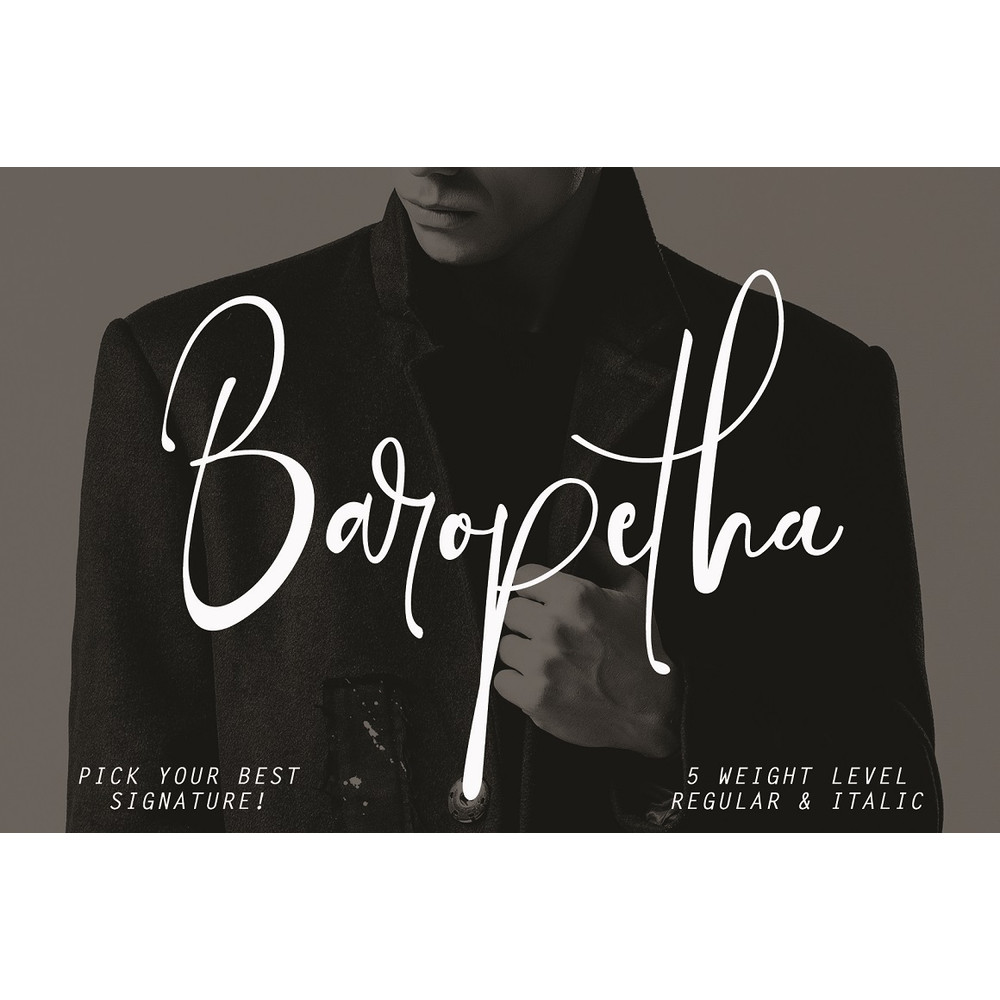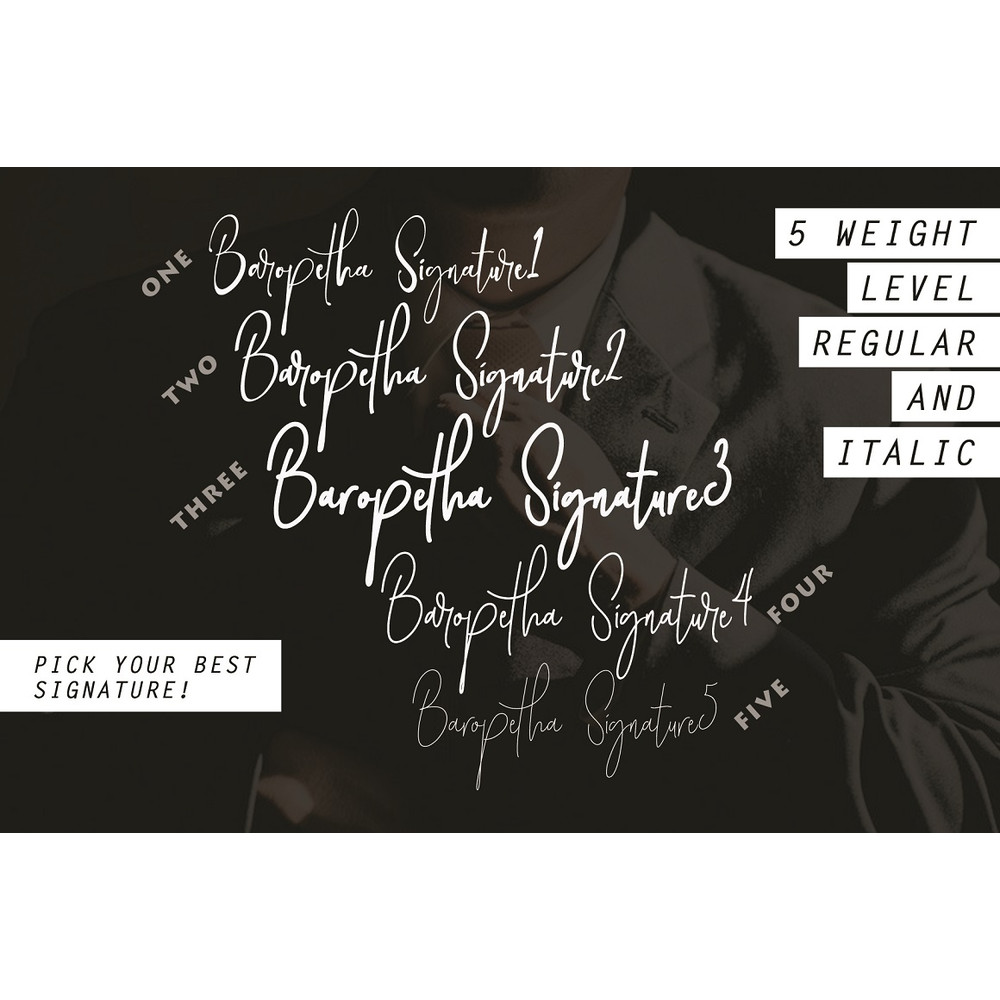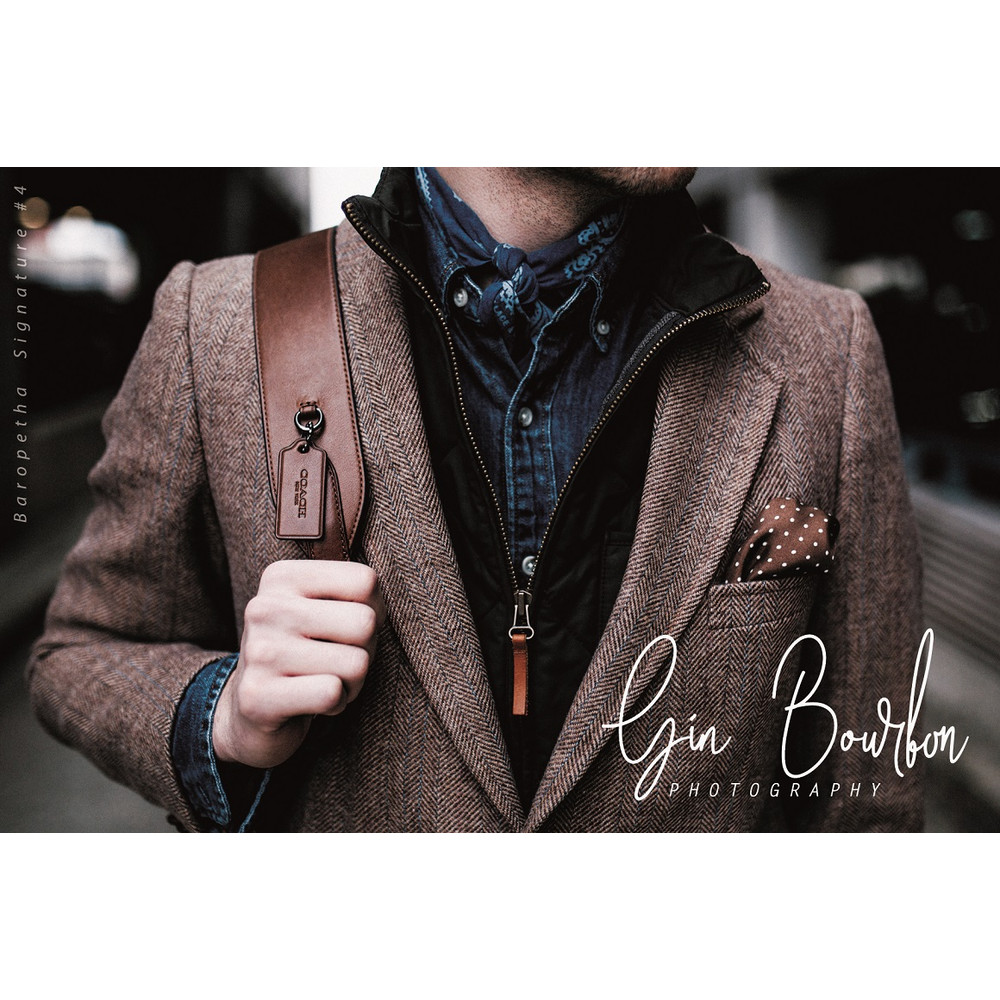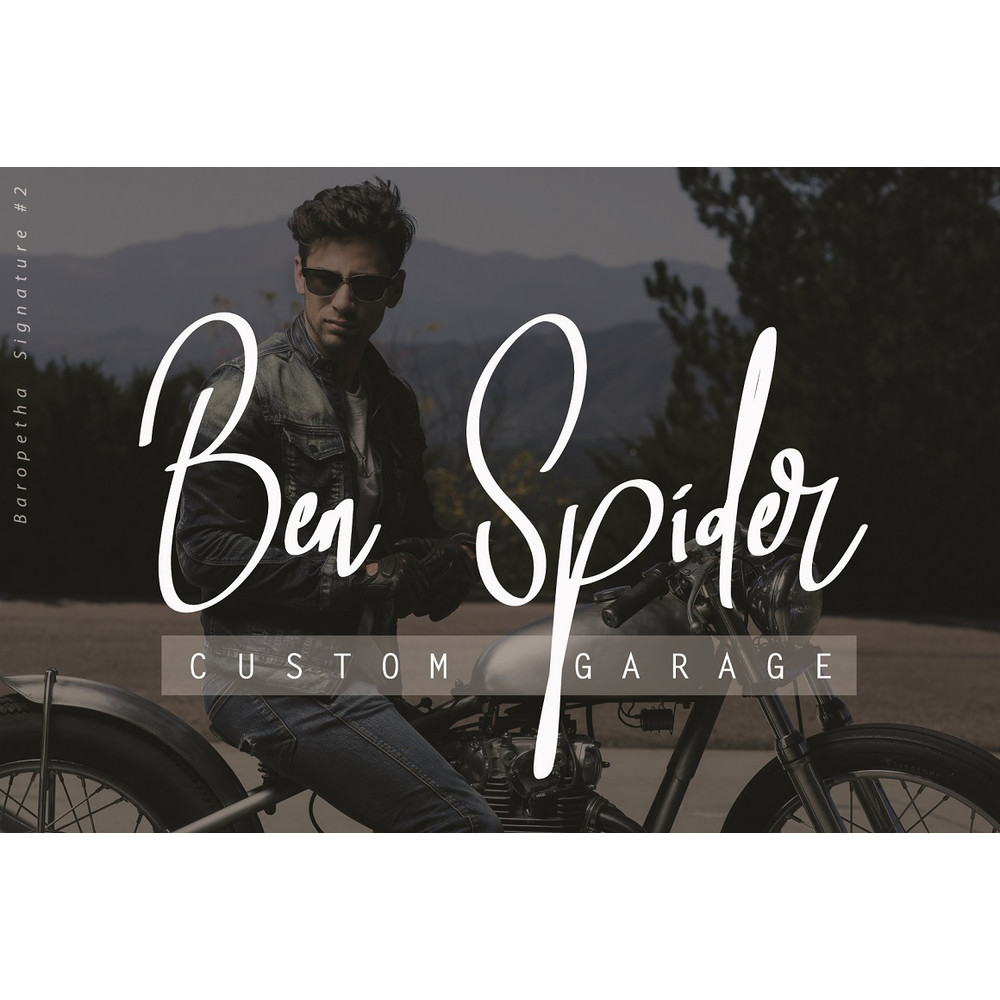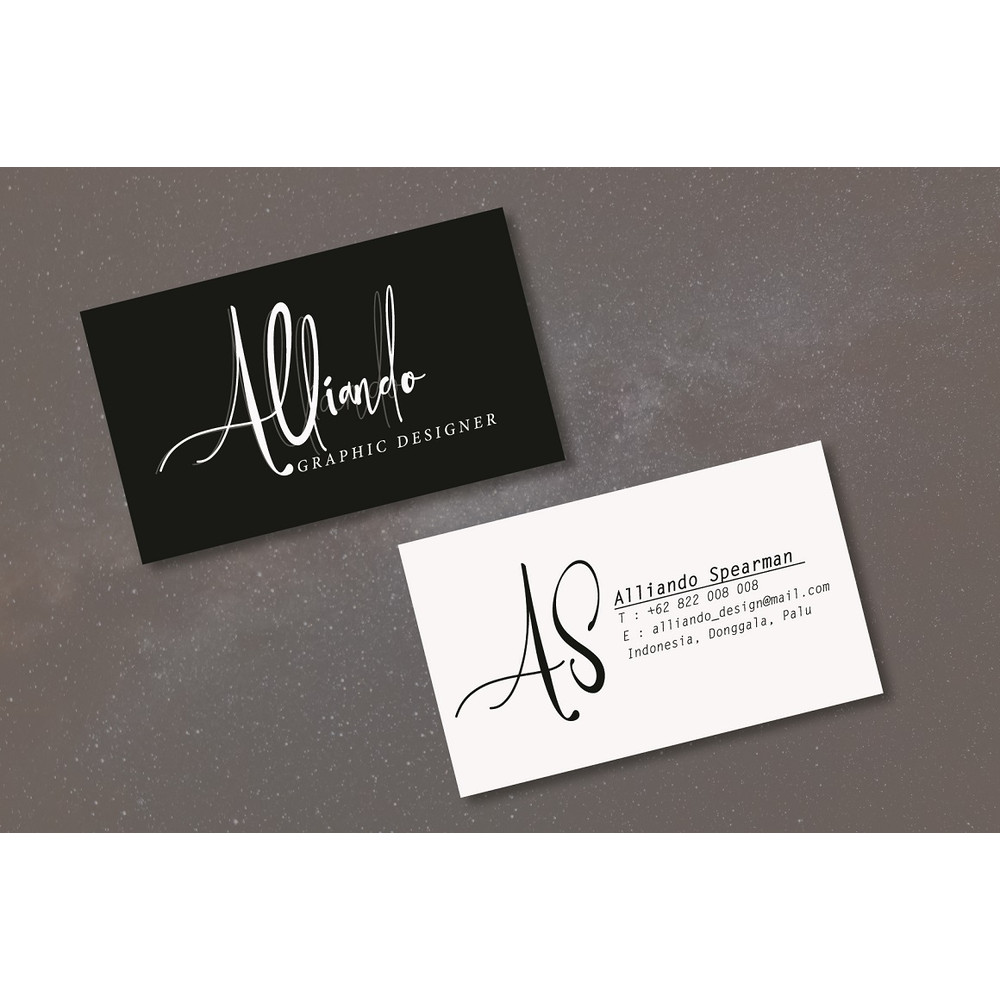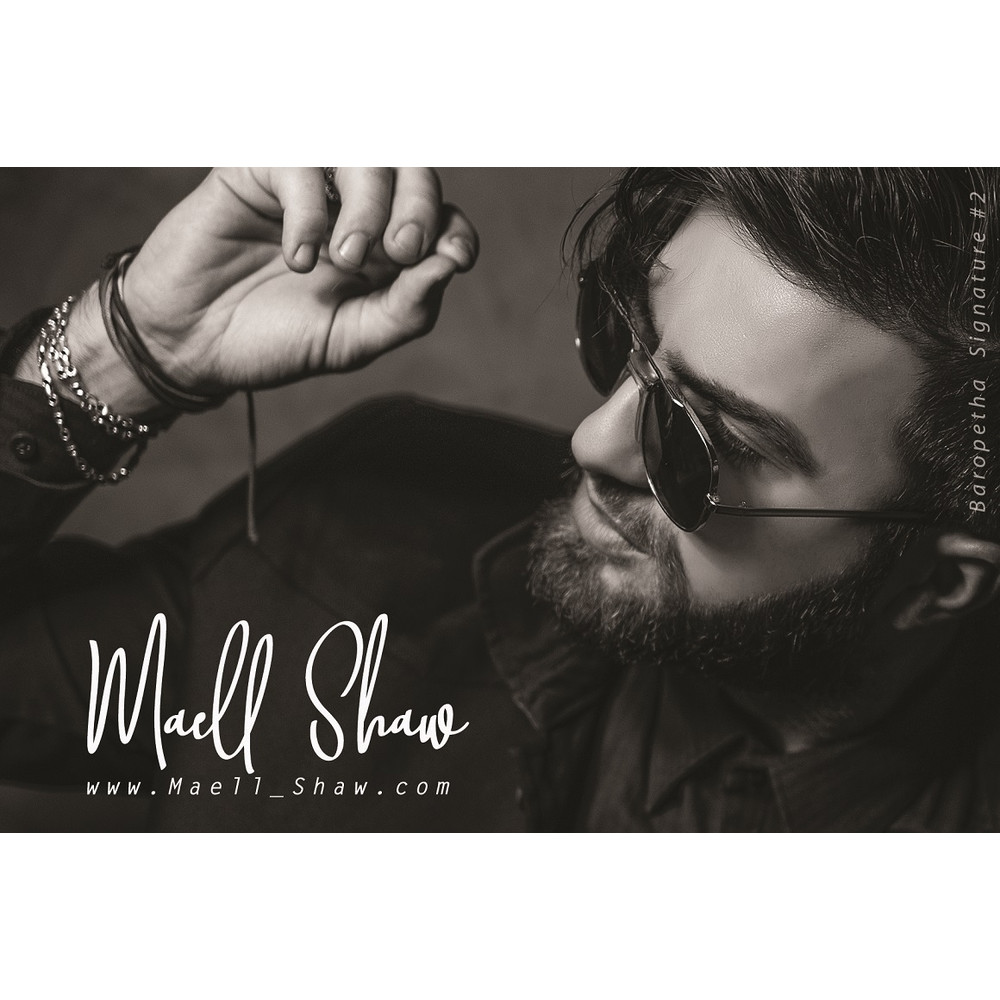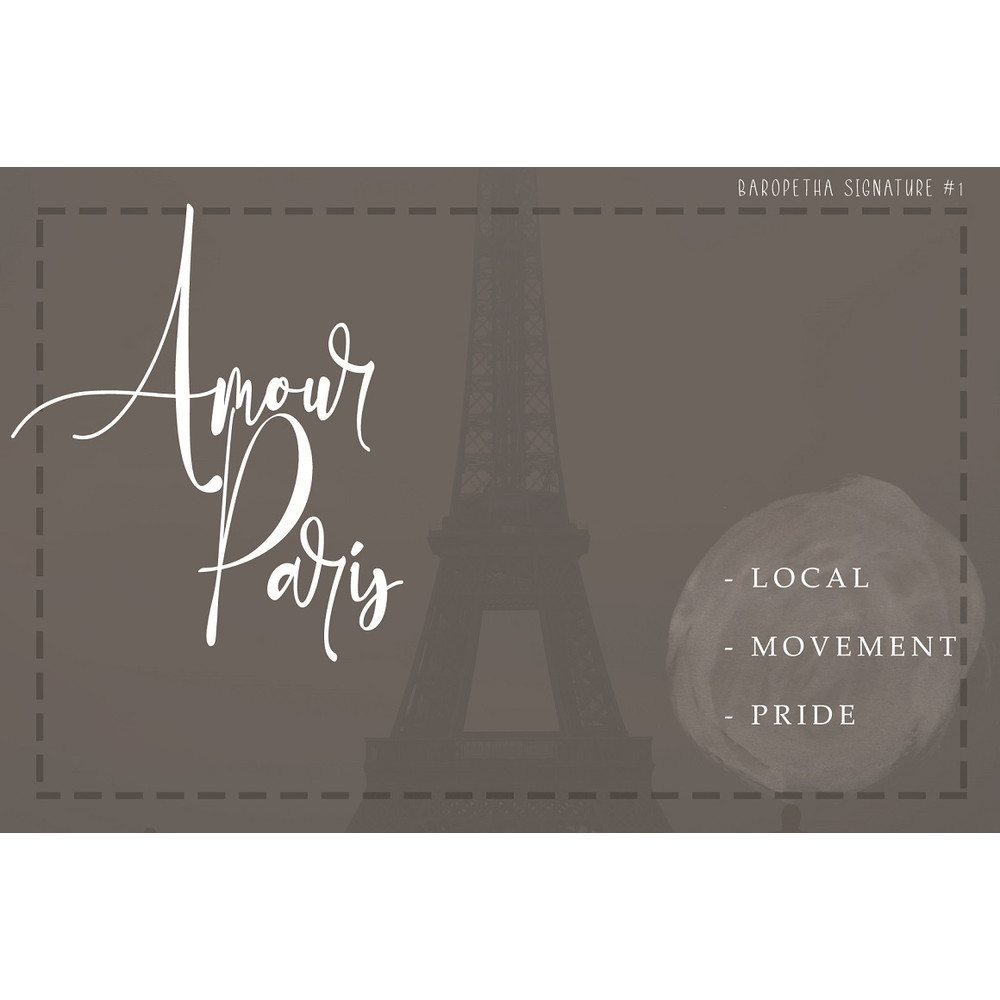
Baropetha Signature is a font with simple and classy taste, comes with 5 Elegant Weight Variations, opentype features such as ligatures, and FREE Italic Version . We keep this font looks classy, readable, elegant, stylish, catchy and absolutly easy to use.
Baropetha Signature is the great choice for watermark on photography, signature or signature logo design, album cover, business card, quotes, and many other design project.
This font is for those who want to show something smooth and modern. You may use this font if you want to attract modern buyers. The font design seems to show that you have a passion in the business and give your love to the products and services you are offered to customers. Because it is an eye-catching signature font, you can use it for a variety of purposes including wedding invitation, signature, logo, branding, poster, and many more.
Each font has:
– Stylish handwritten style
– So much Special Ligatures
– Multilingual Support